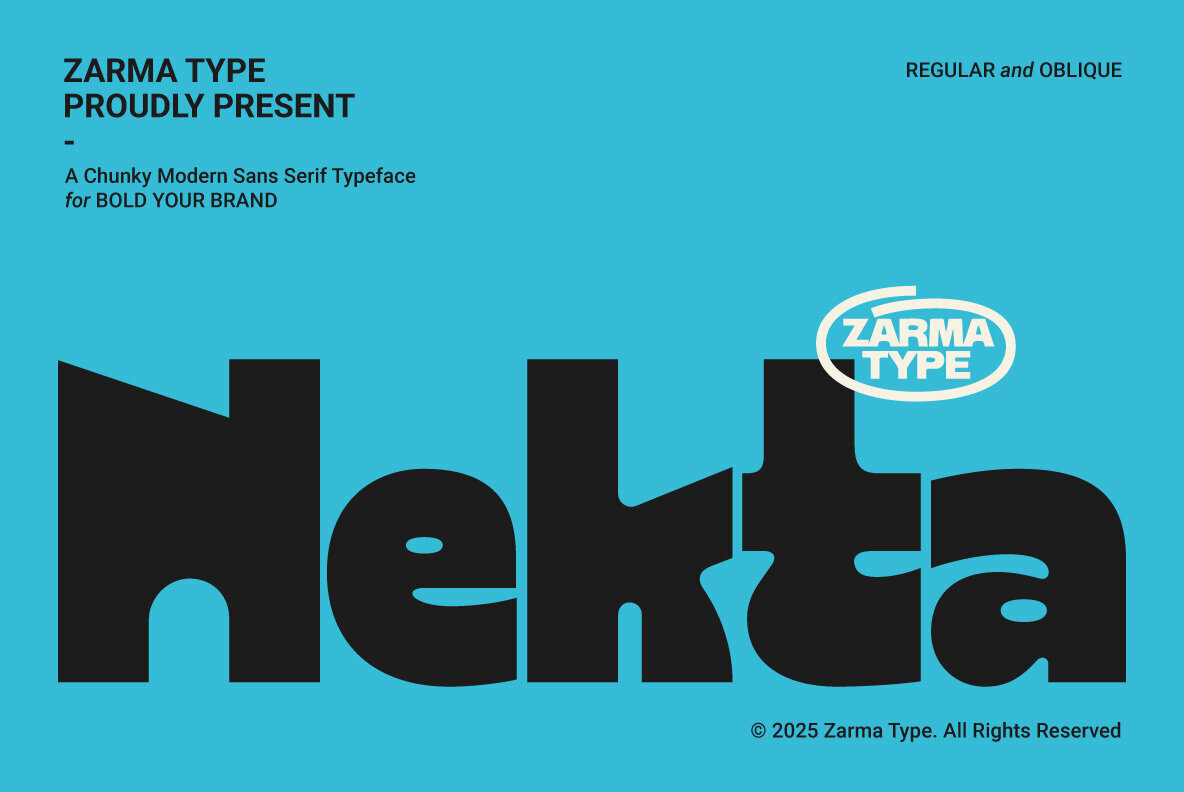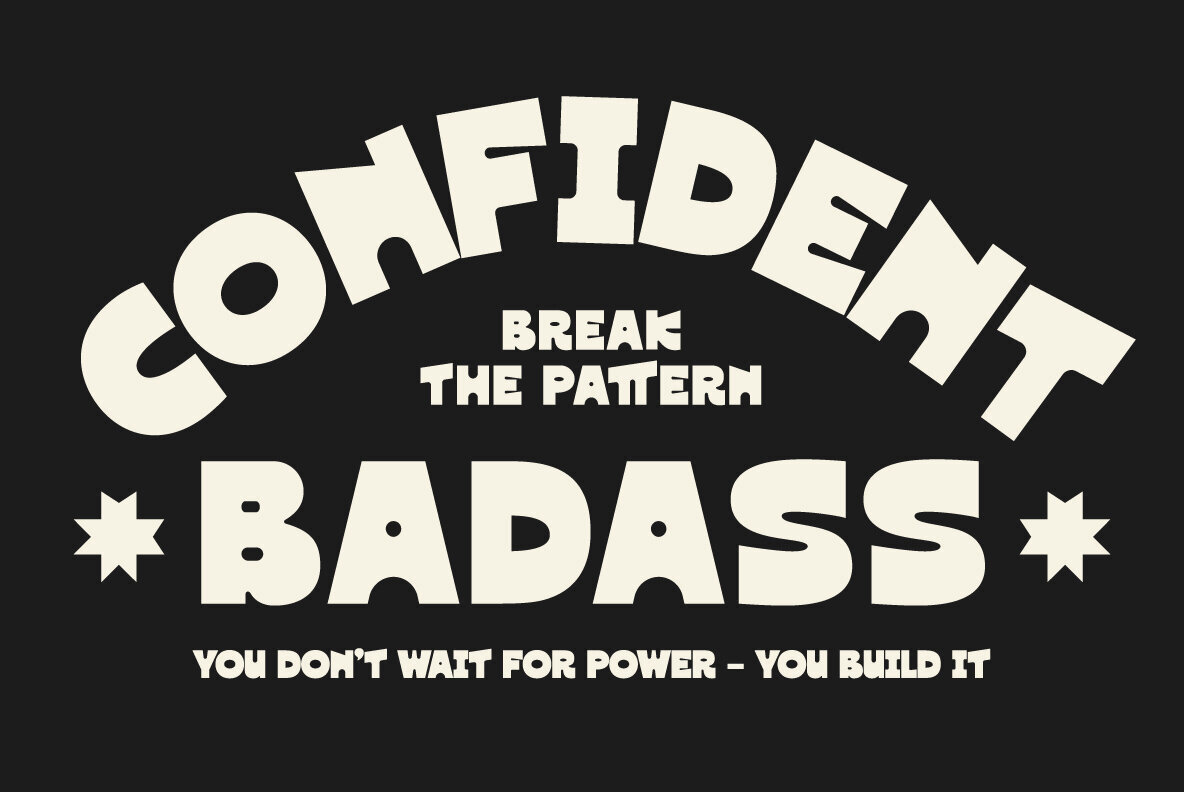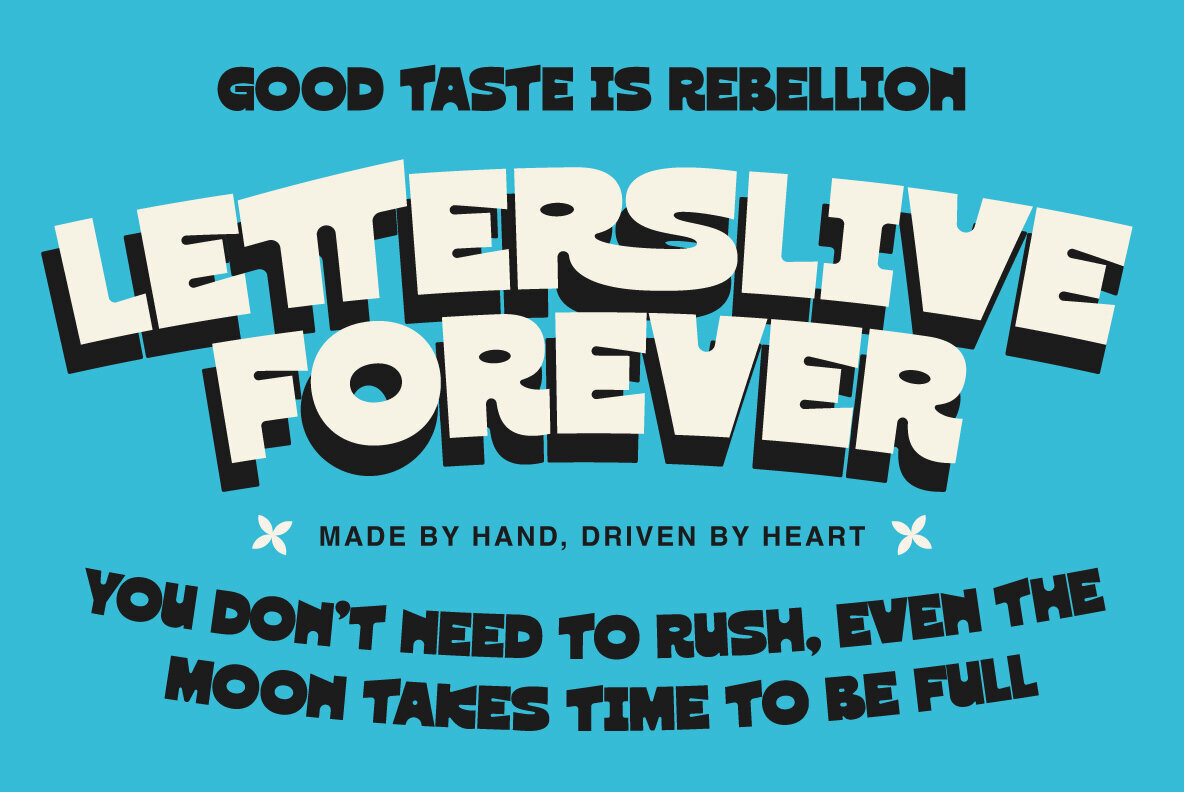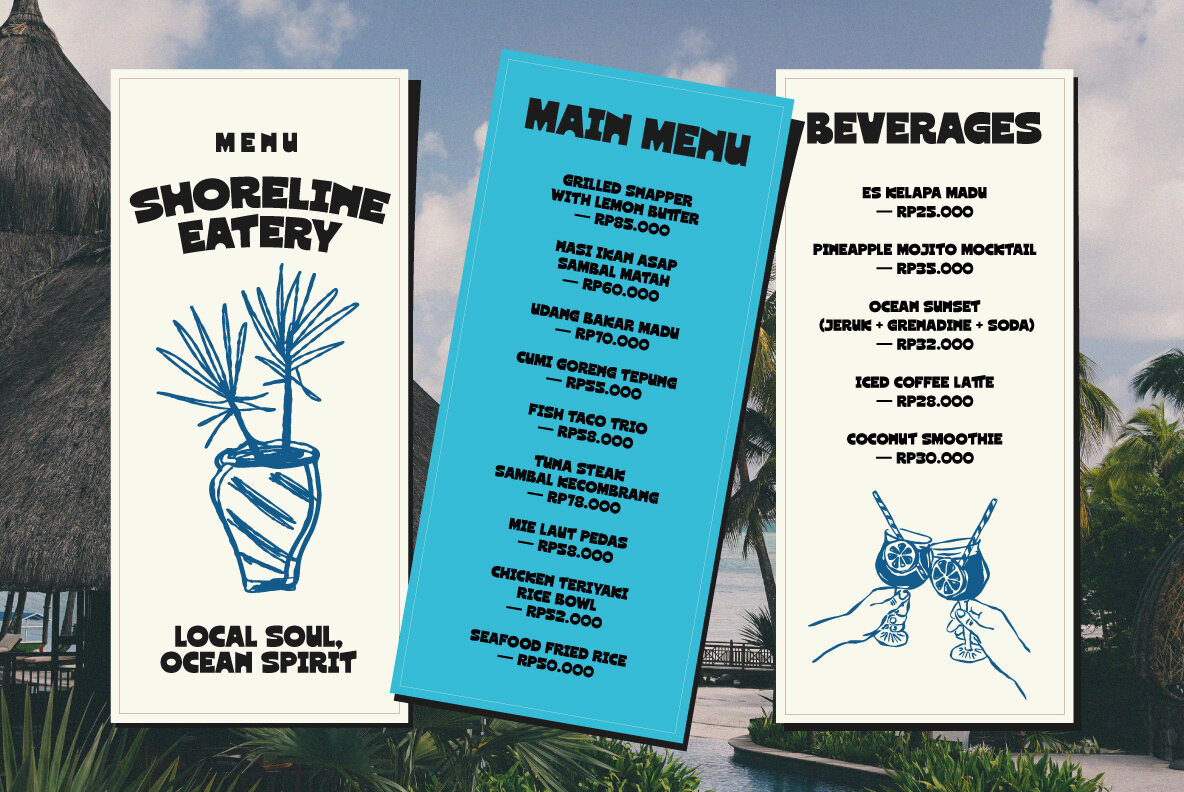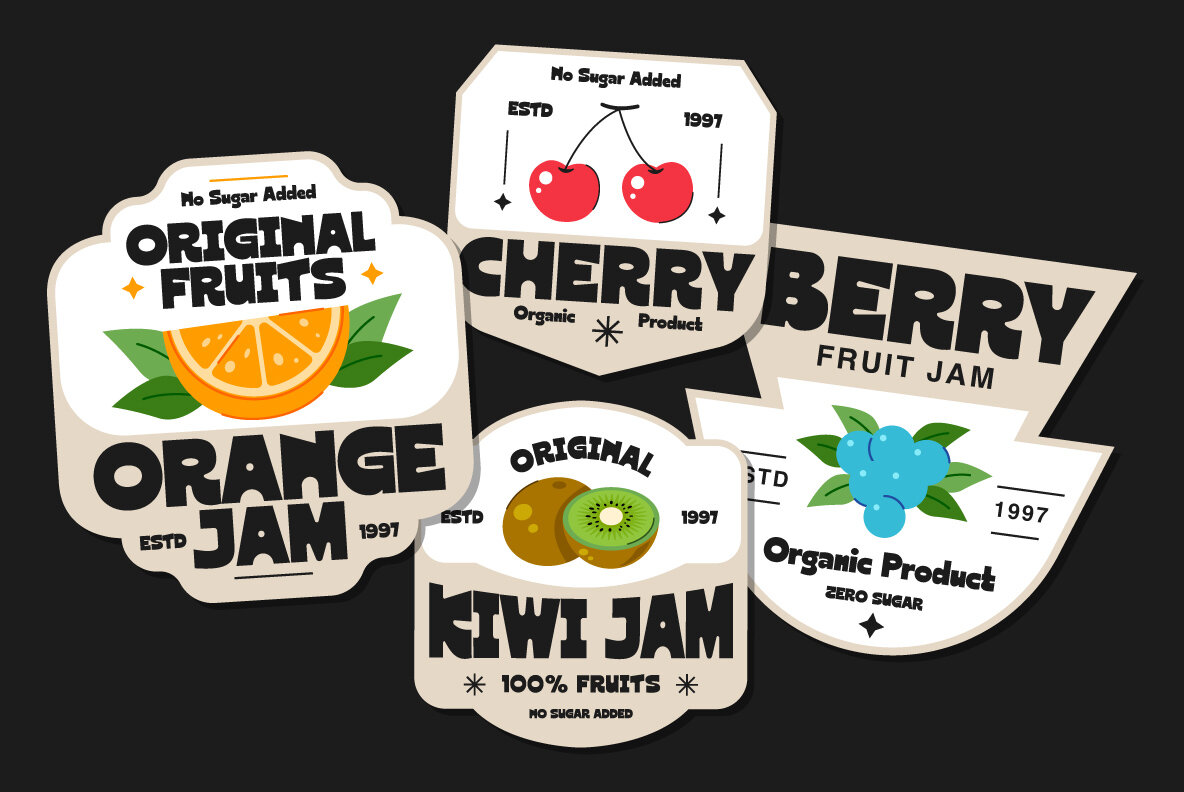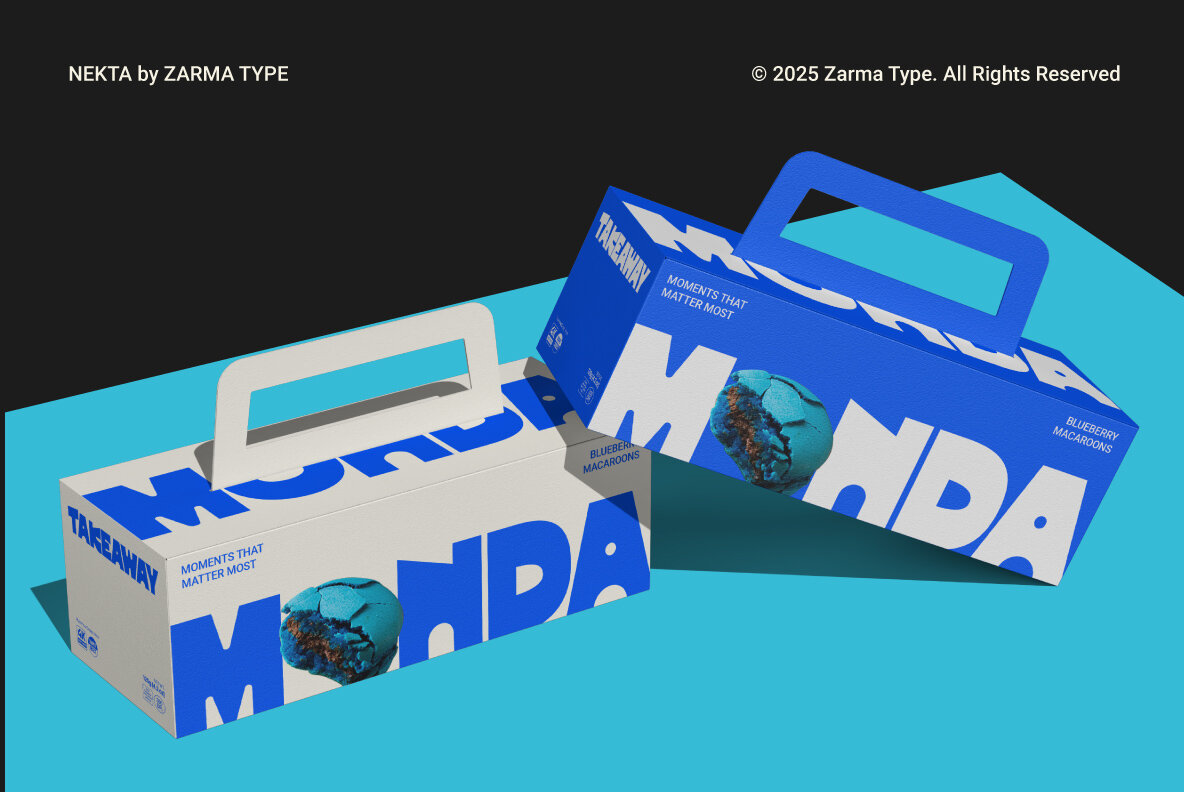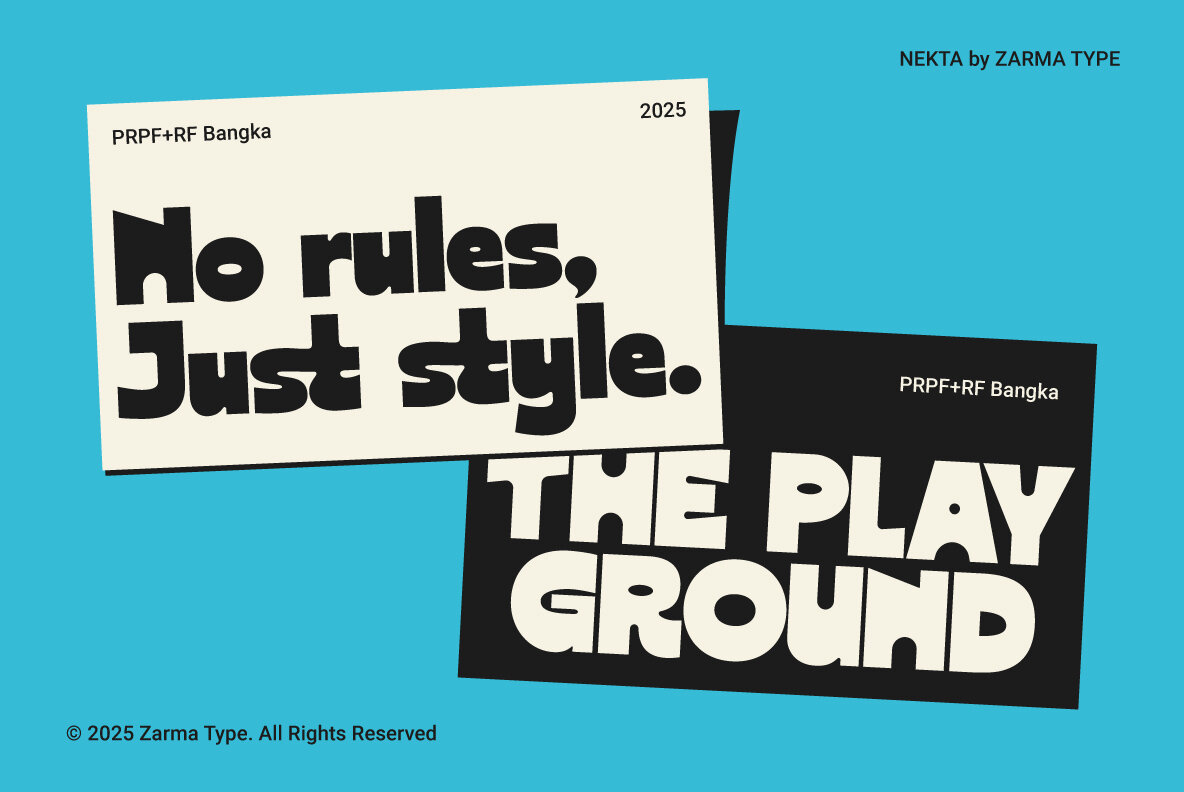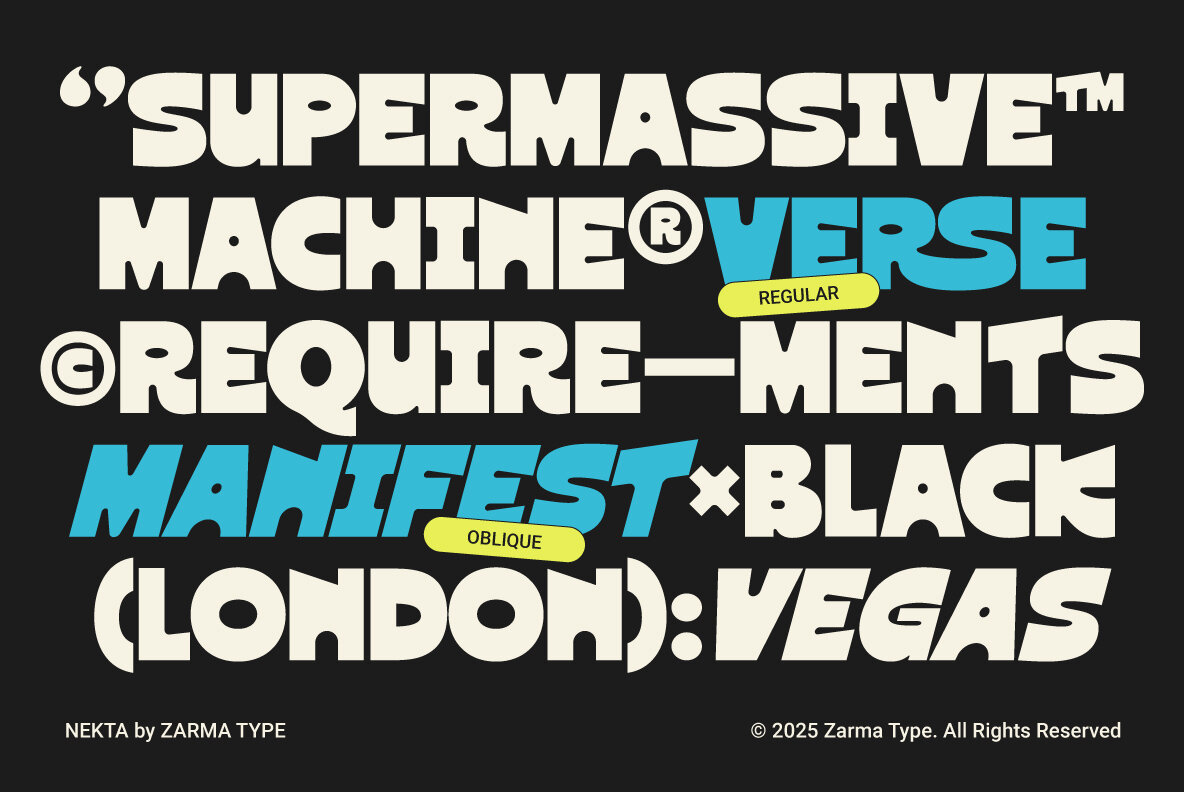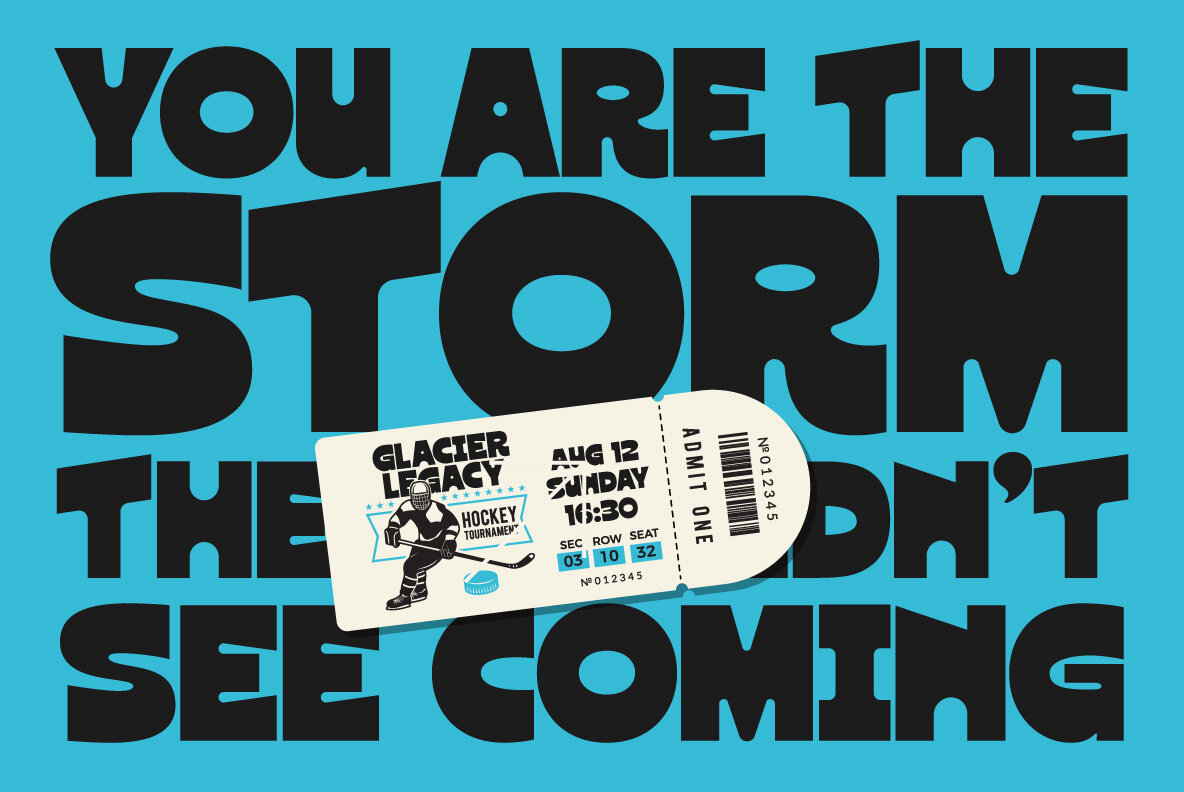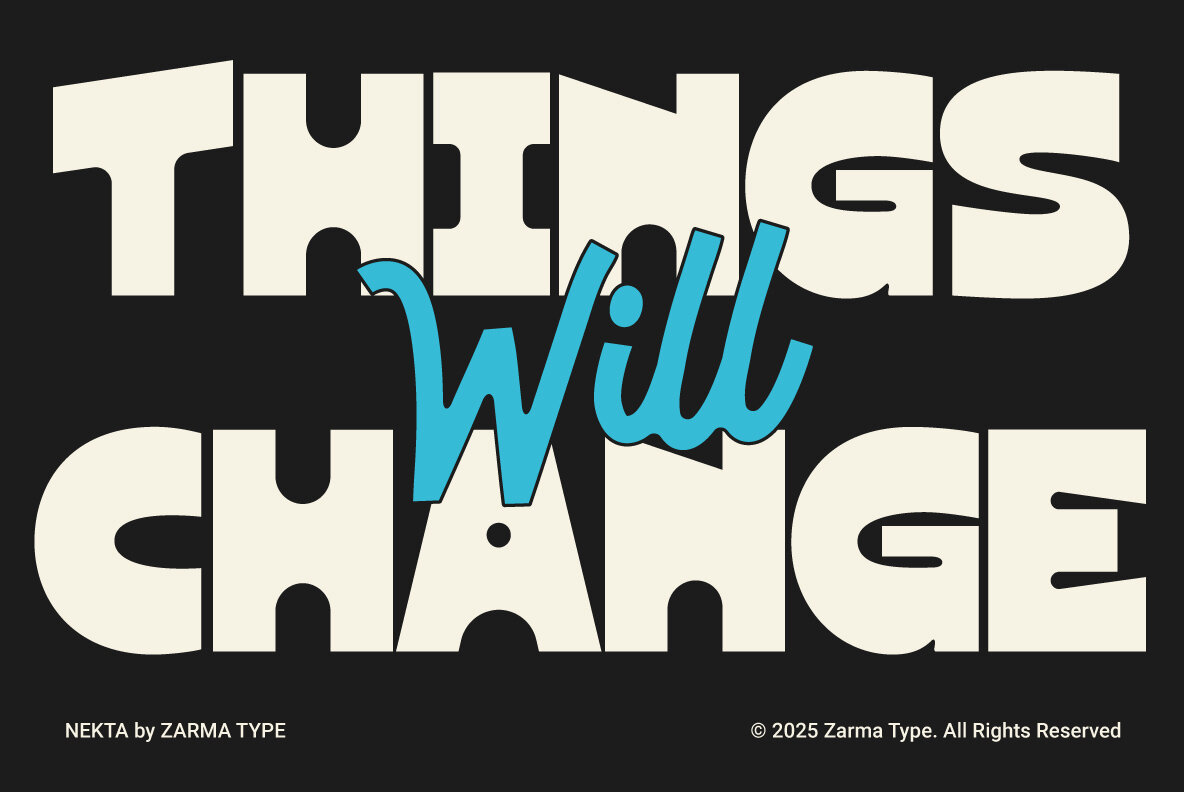
Nekta Font
Nekta is a modern sans serif font crafted with confident weight, rounded corners, and distinctive geometry. Its generous counters and clear spacing ensure readability for menus, posters, and branded product cards. When your layout calls for motion or emphasis, Nekta’s oblique style adds a directional accent without the need to switch font families. Designed with practical branding in mind, Nekta maintains its structural integrity across a range of applications—from small product labels to large-scale billboards. Its steady rhythm and approachable tone remain consistent, even in tight layouts. Alternate glyphs allow subtle adjustments to word shape, while multilingual features support cohesive global branding. The oblique version gives designers flexibility to introduce hierarchy or dynamic contrast where needed. Nekta is well-suited for brand identity, menu boards, event posters, product labels, sports tickets, packaging, billboard headlines, social promotions, badges, and wayfinding. Its adaptability and friendly profile equip creative teams for projects that require clarity, energy, and a touch of individuality.Nekta Sans Serif: Versatility and Character for Modern Typography